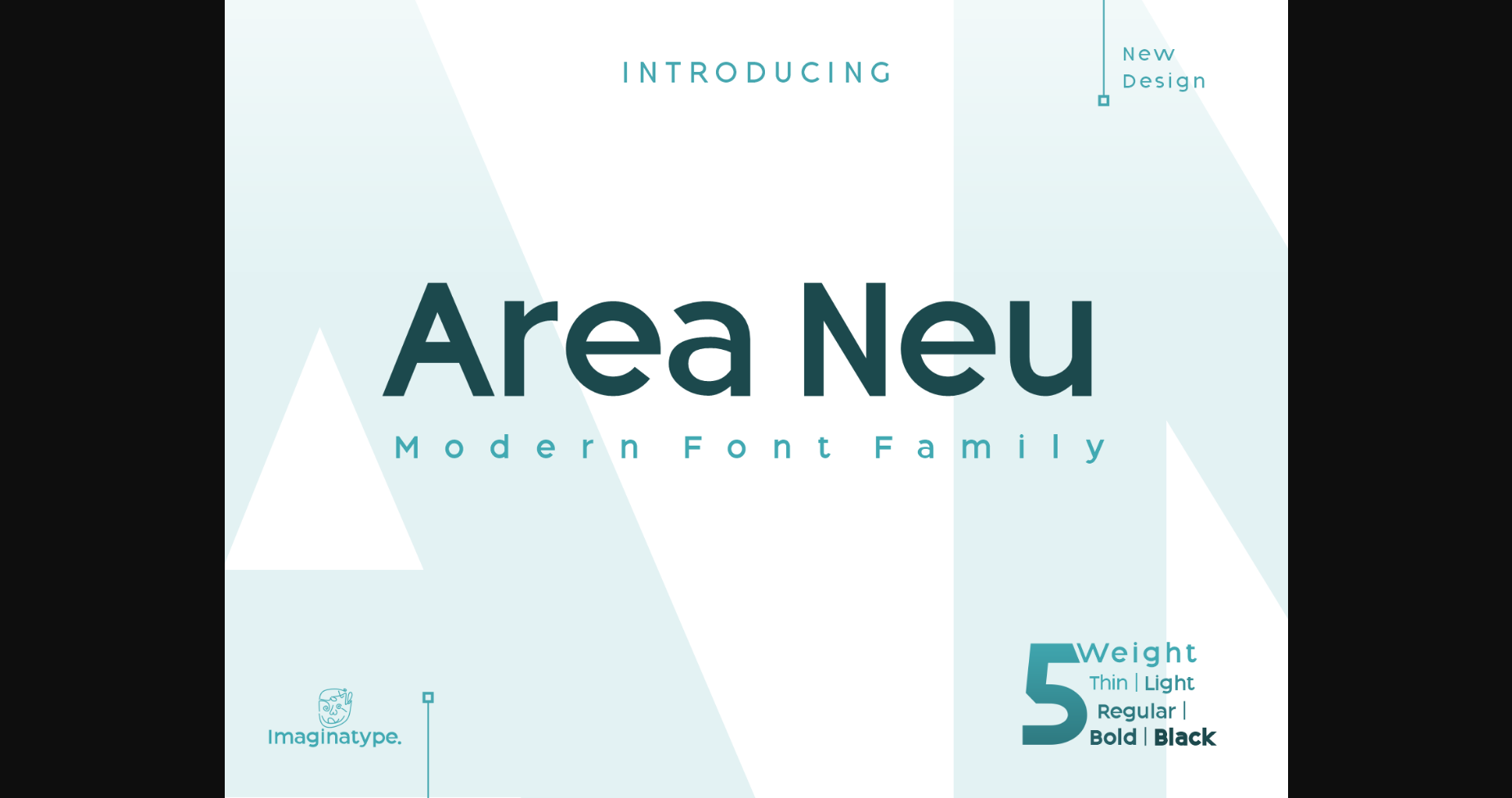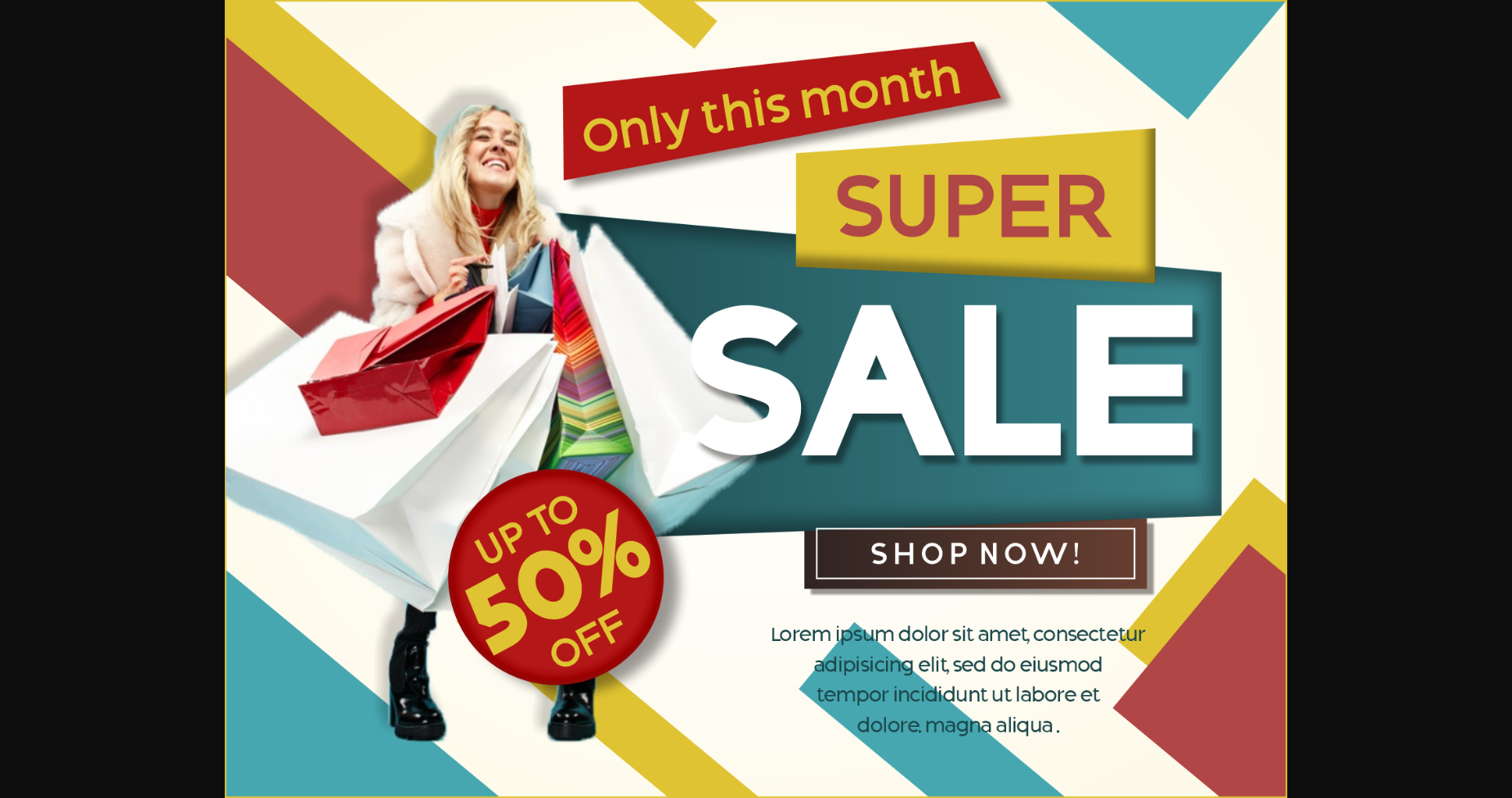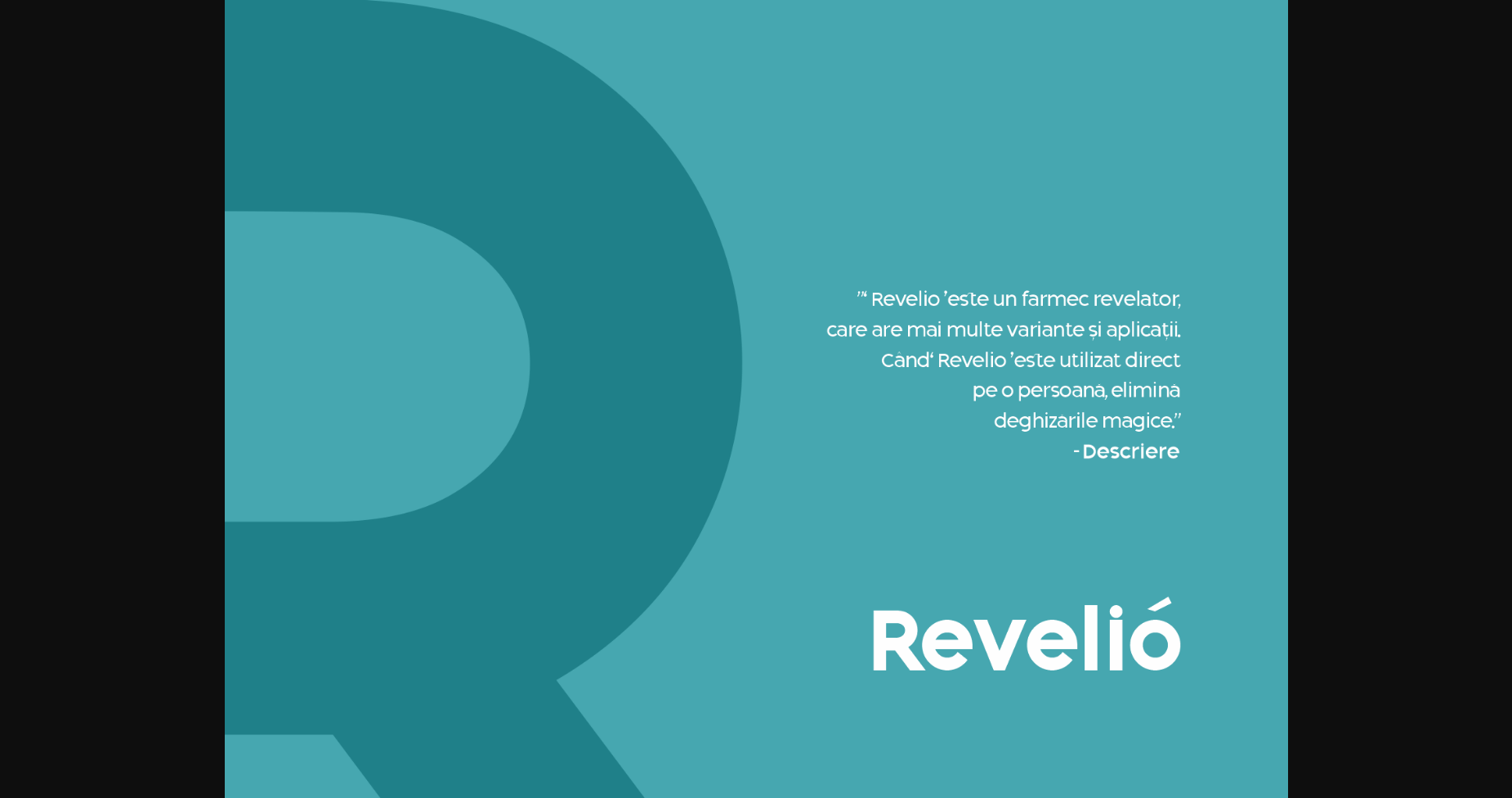
About Area Neu Font
Area Neun is a cool, modern and neat sans serif font. Whatever the topic, this font will be a great asset to your font library, as it has the potential to enhance any creation.